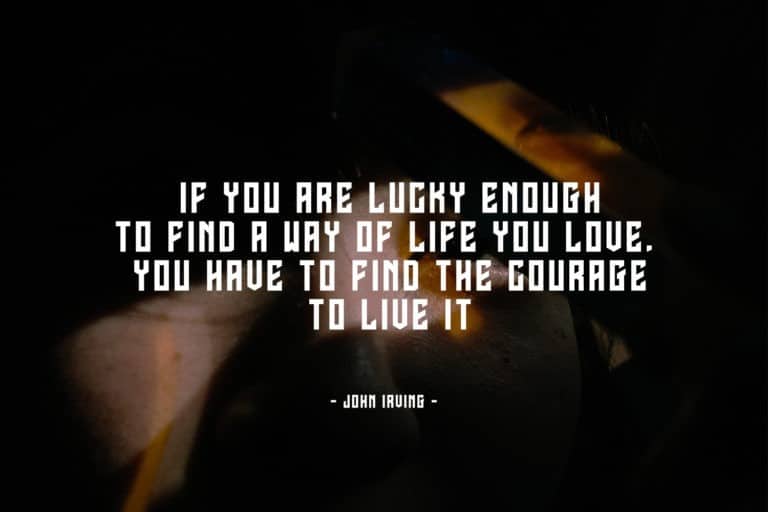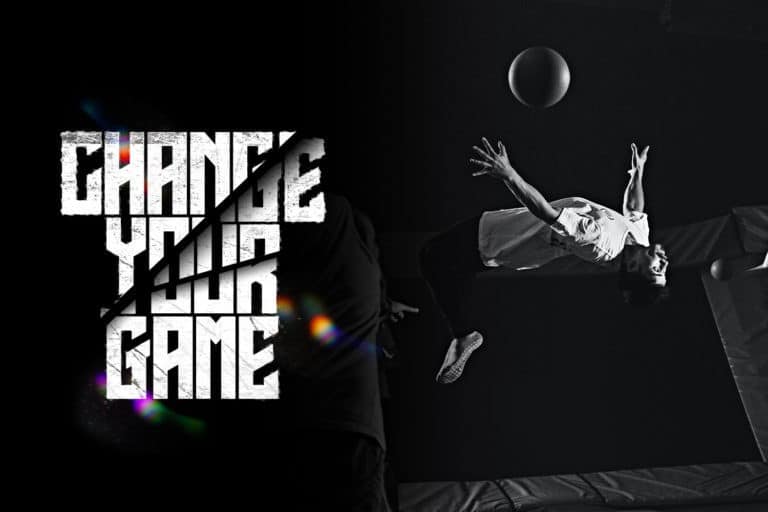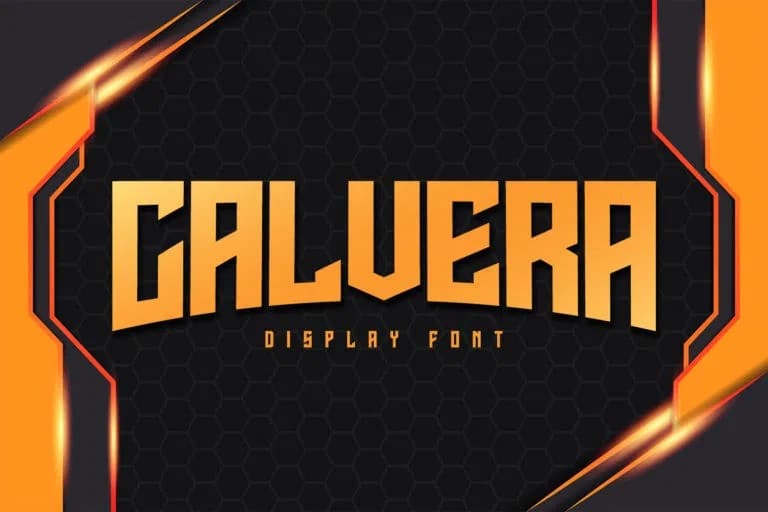
Calvera Display Font
Introducing Calvera Display Font is made with great taste. It’s a modern futuristic font with a bold feel. It will add a contemporary update to any design project. This typeface is designed and shared by Din Studio. It’s a modern display font. Made for any professional project branding. It is the best for logos, branding and quotes. Every letter has a unique and beautiful touch.